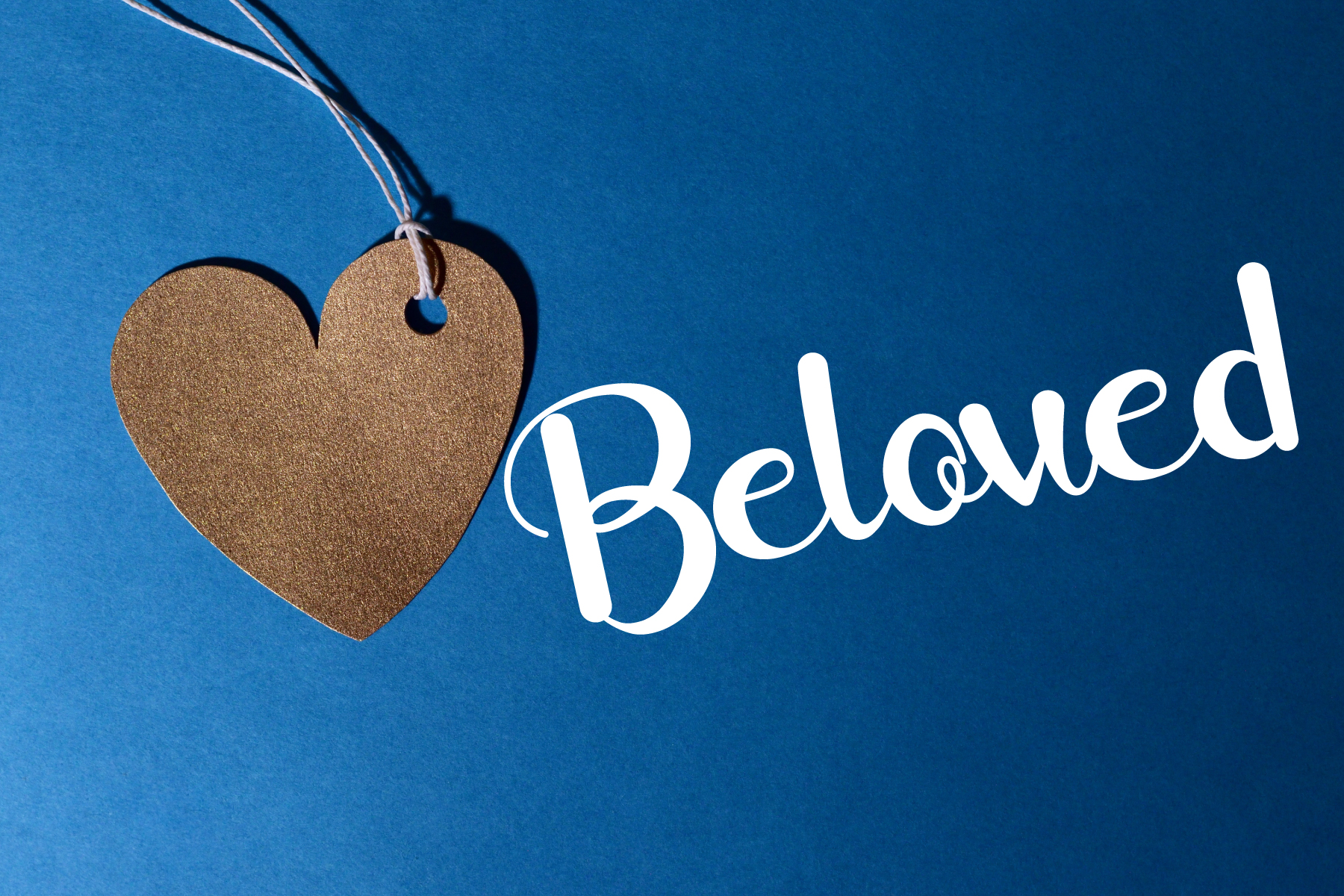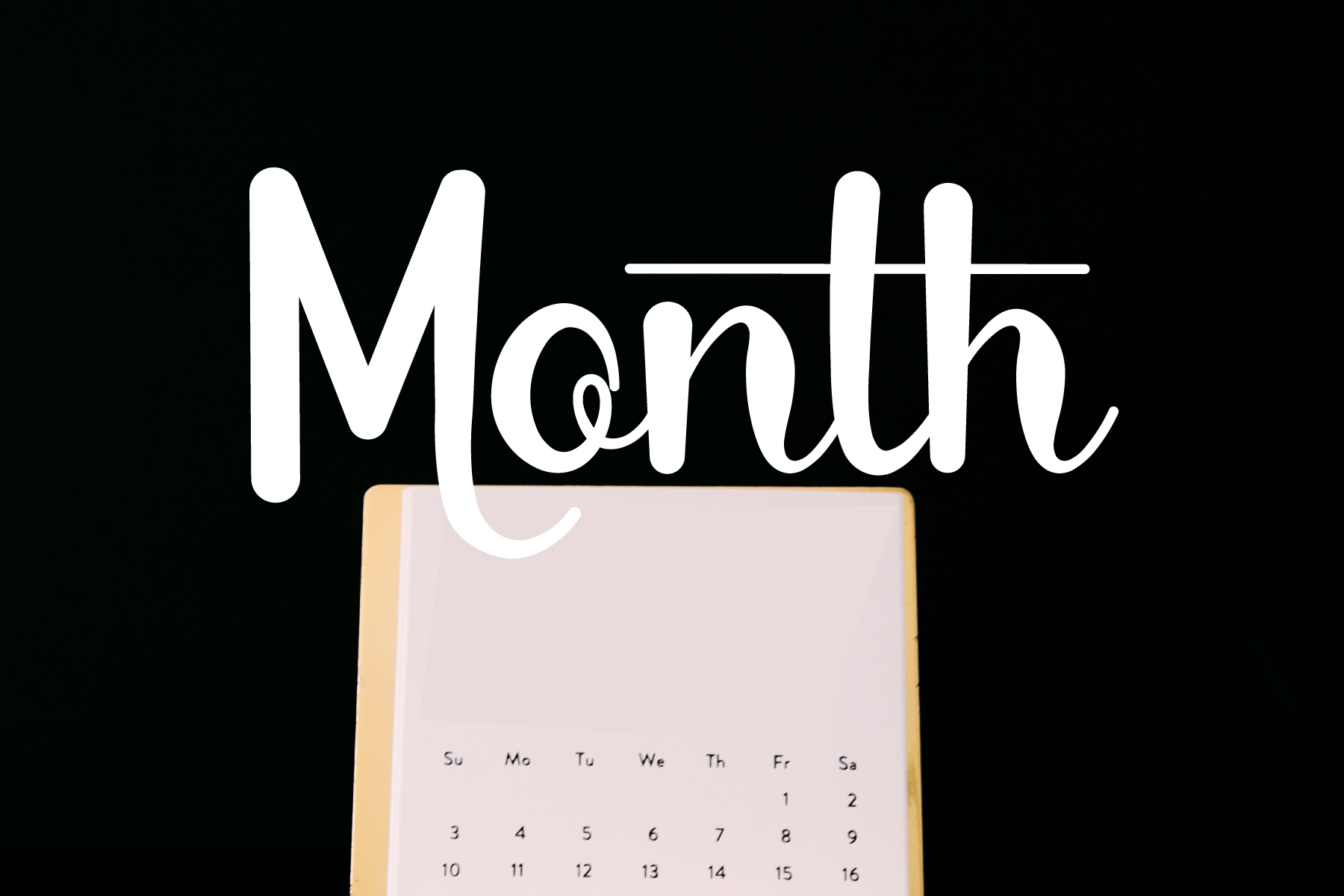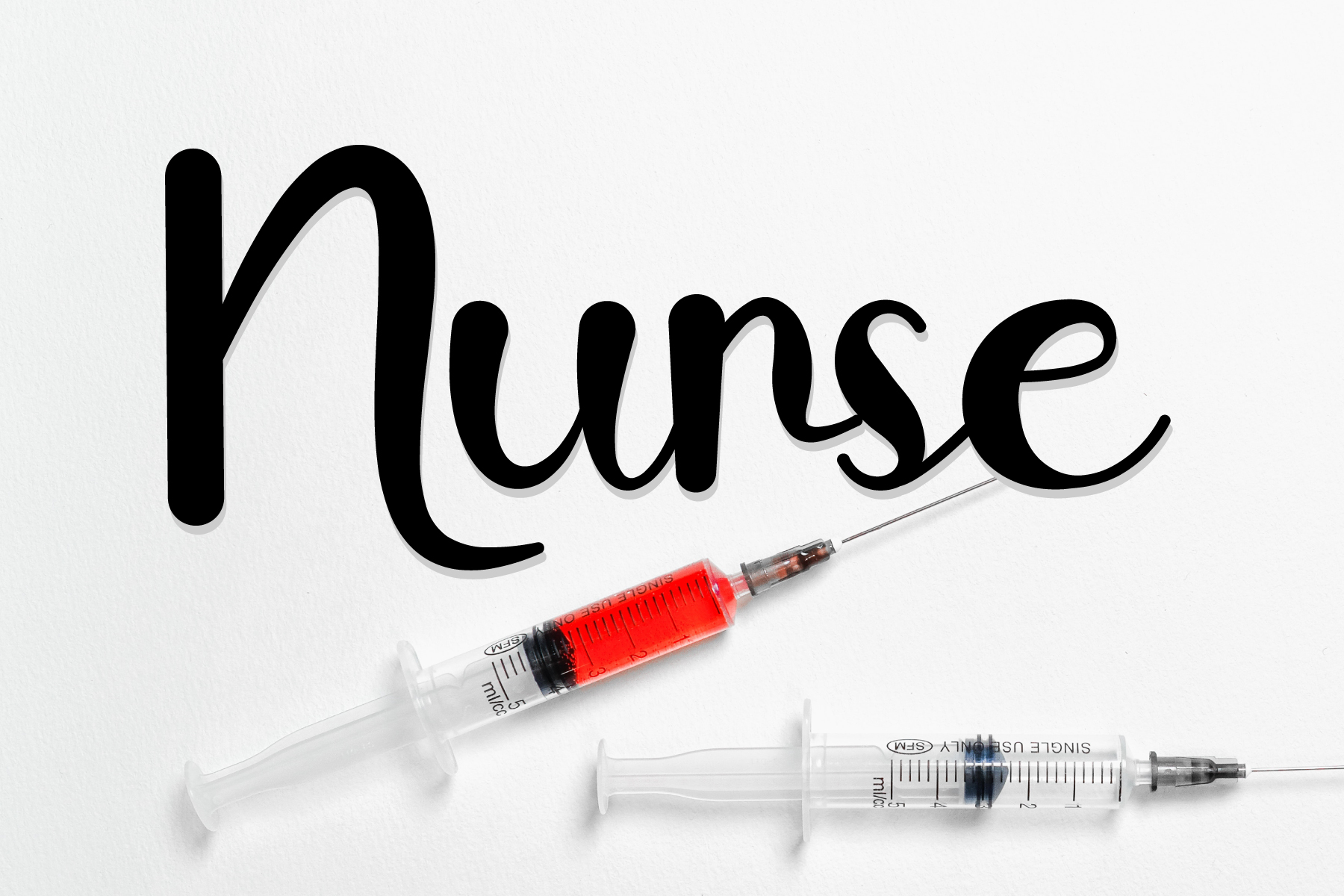
The Rain Script Font
This is a cool and beautiful script font. Whatever the topic, this font will be a wonderful asset to your font library, as it has the potential to enhance any creation.